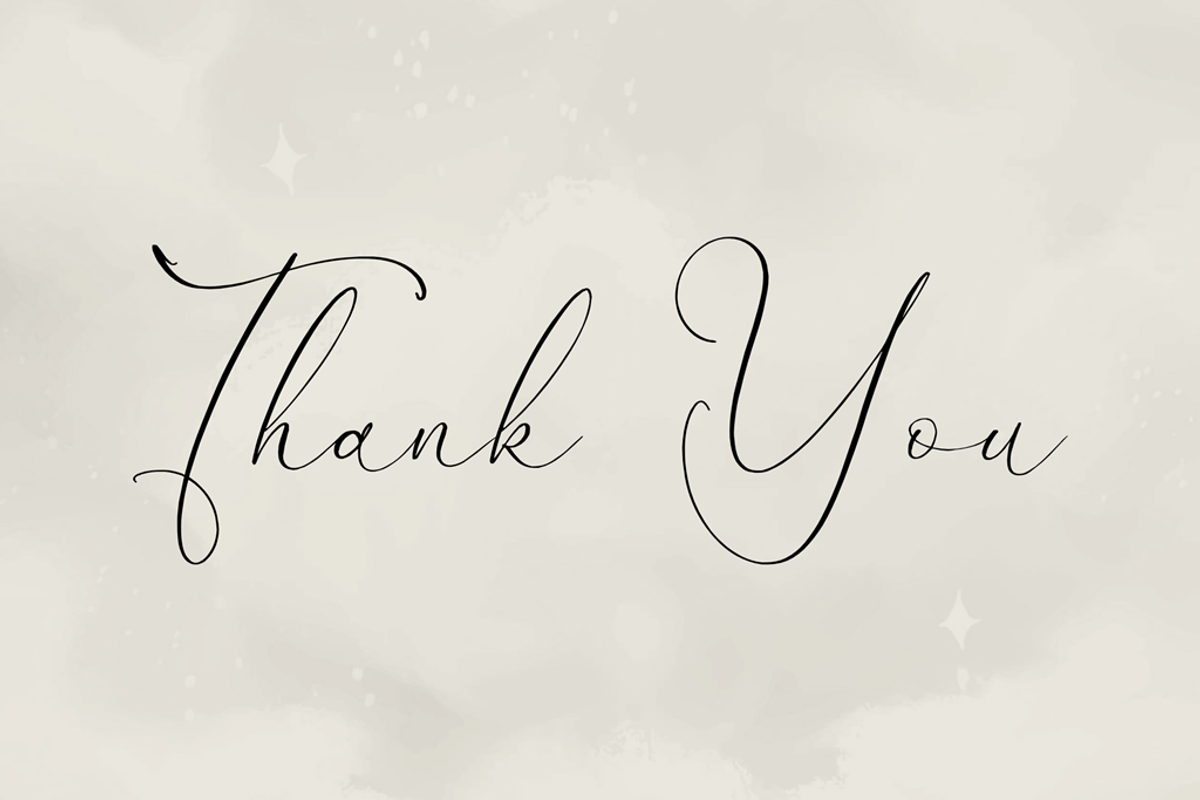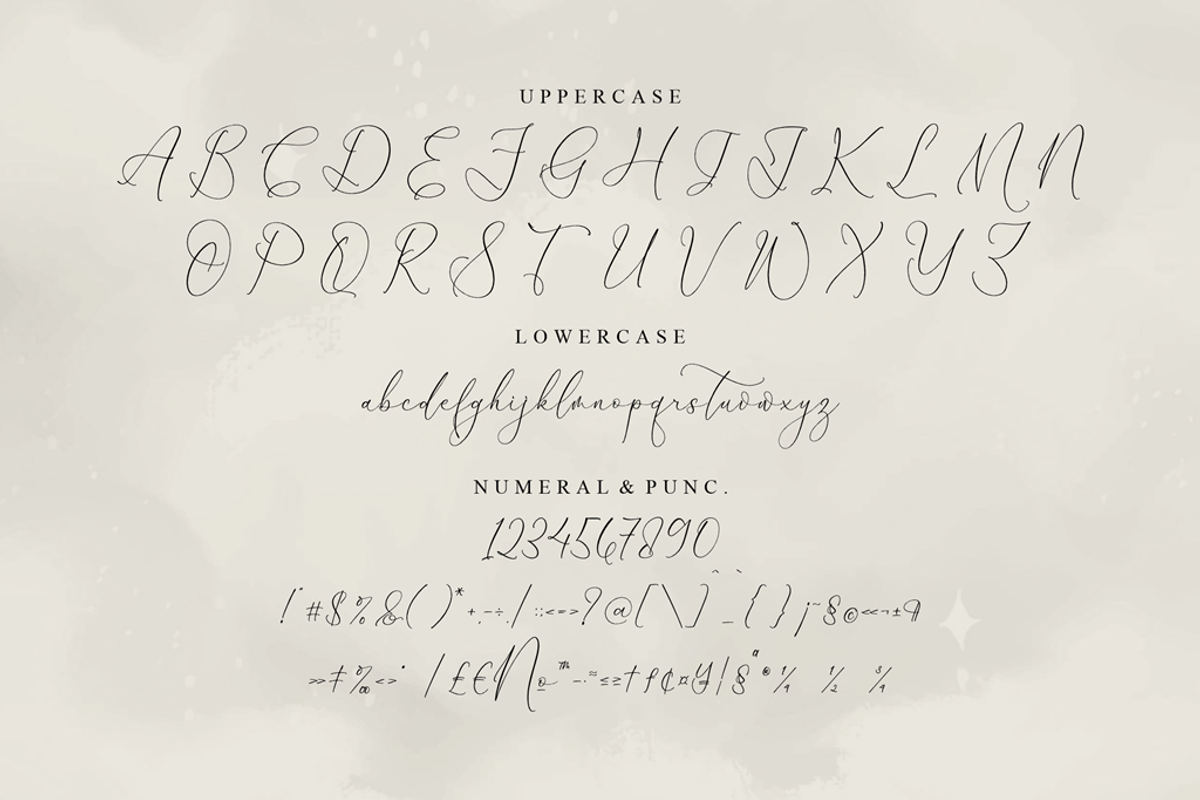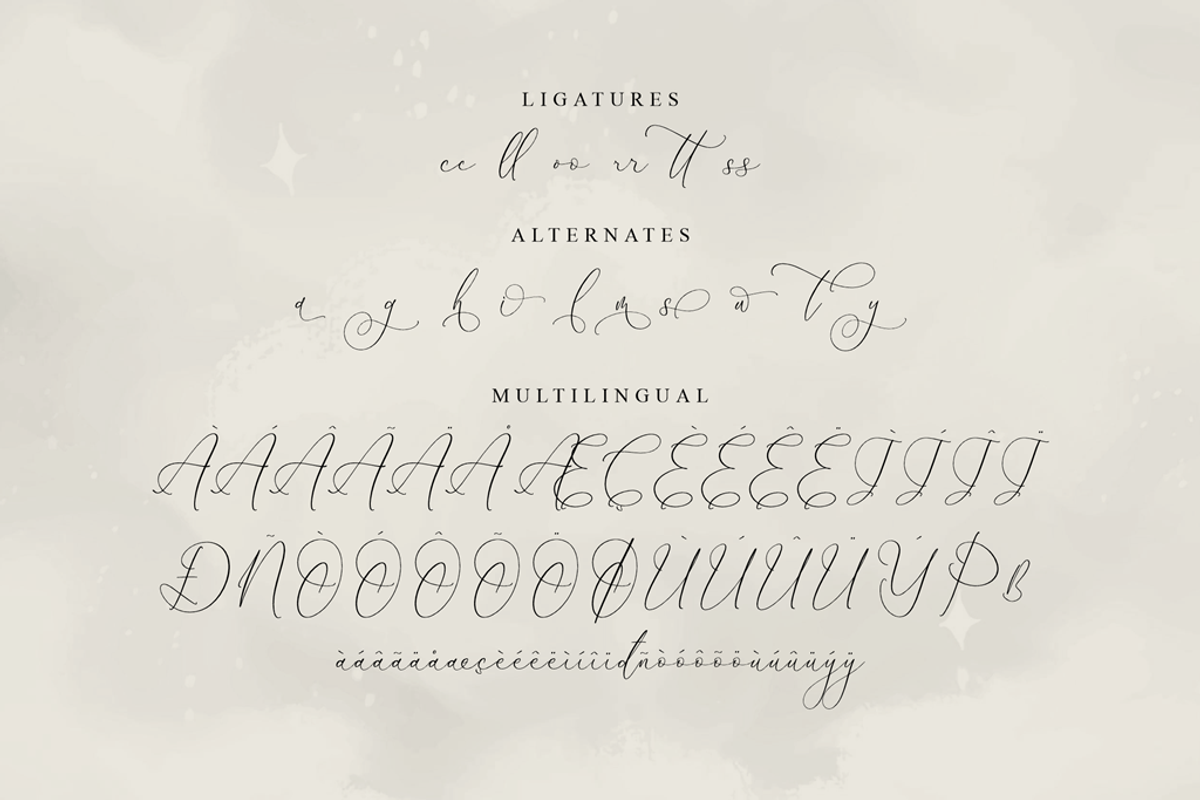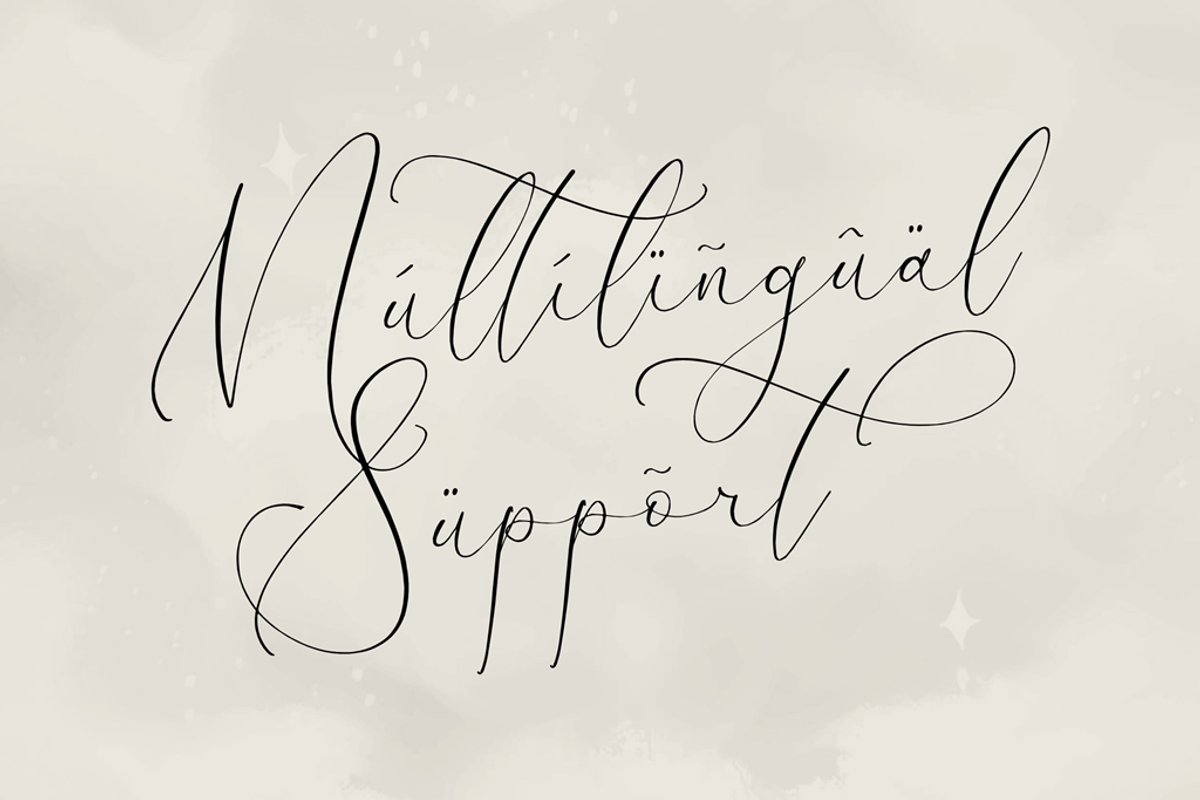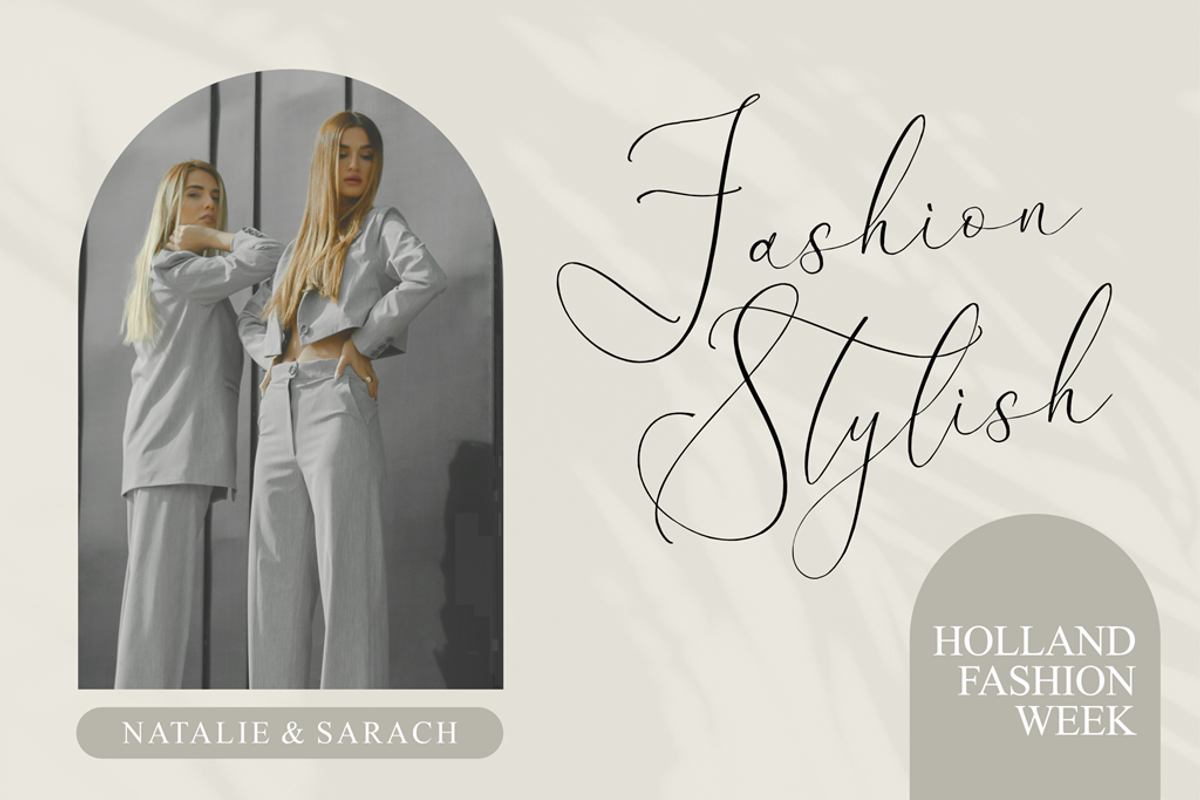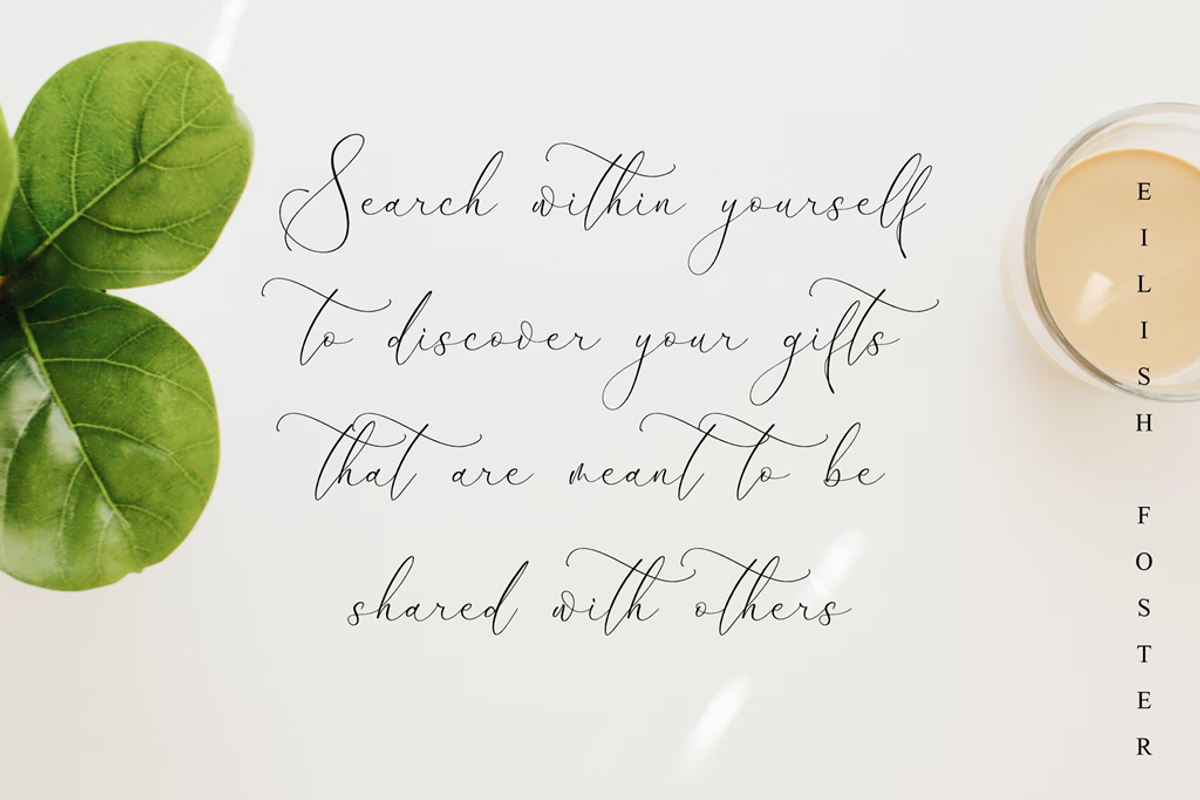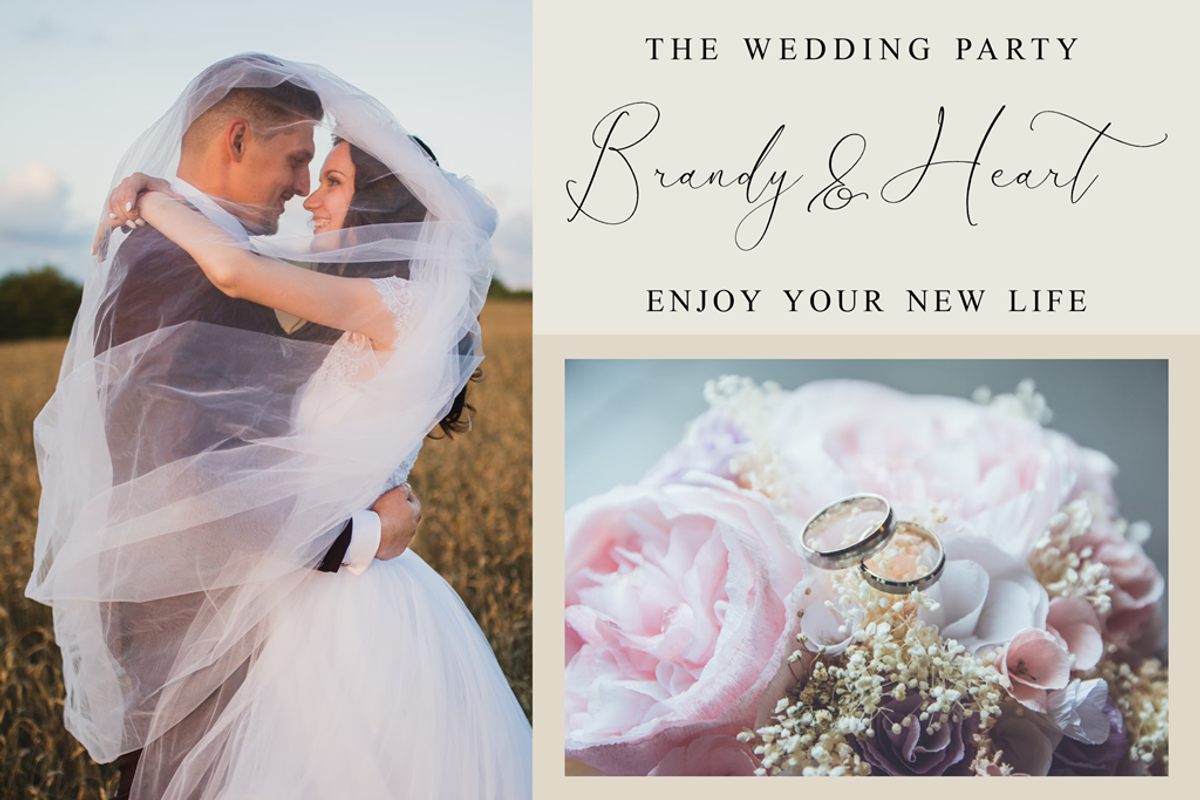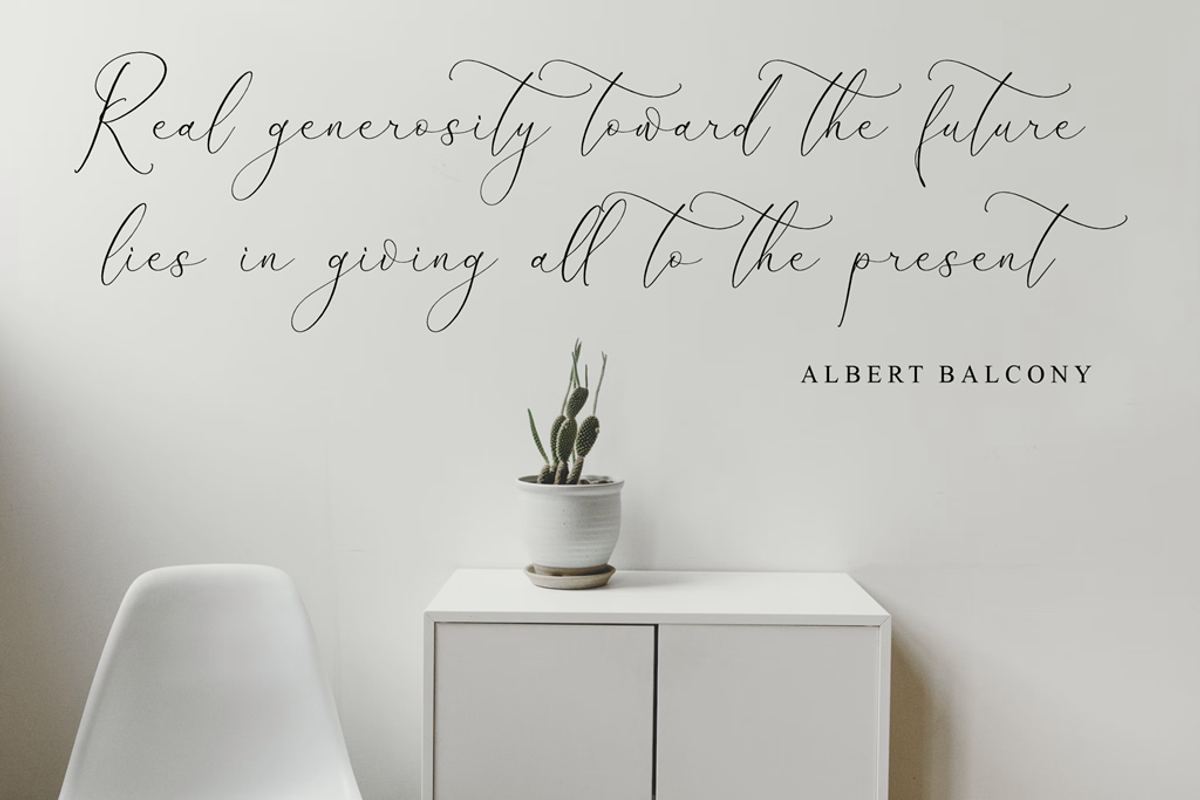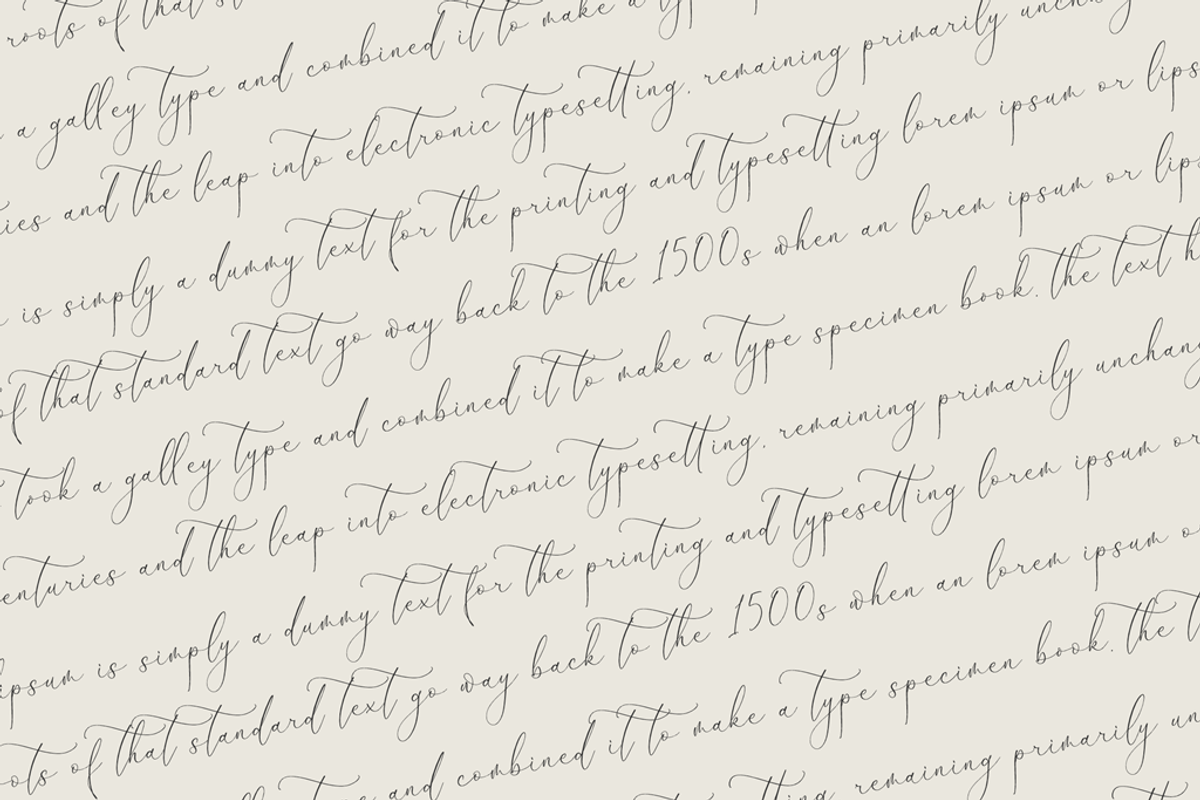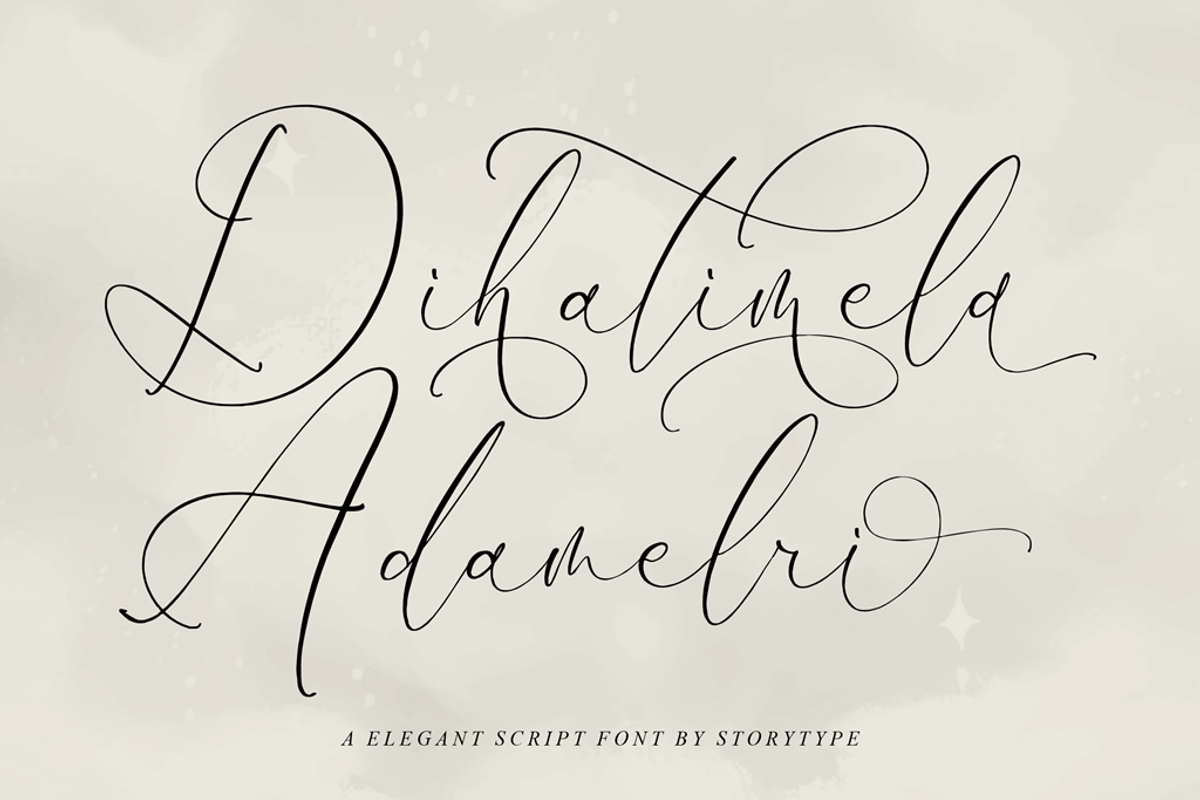
Dihatimu Adamelri Elegant Script
Proudly present Dihatimela Adamelri - Elegant Script Font , created by Storytype, A luxury script that has own unique style & modern look. This typeface is perfect for an elegant & luxury logo, book or movie title design, fashion brand, magazine, clothes, lettering, quotes, and so much more.